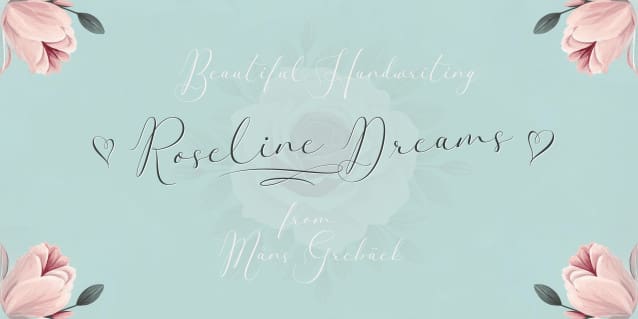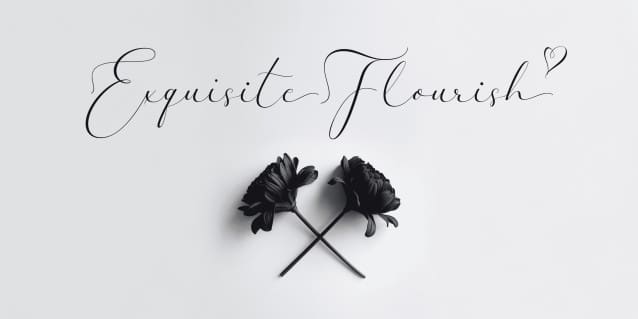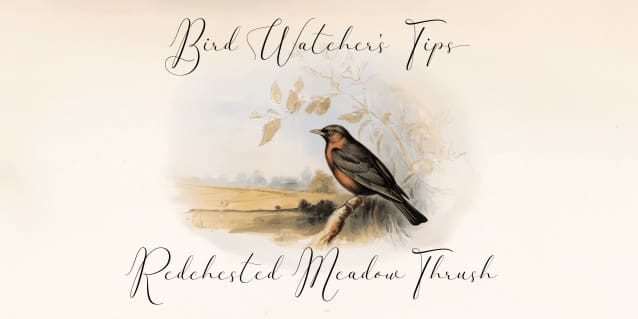
Roseline Dreams Font
Roseline Dreams Font is an elegant and delicate handwritten script. With thin, graceful strokes, it evokes a sense of feminine beauty and sophistication.
Use underscore _ anywhere in a word to make a swash.
Example: Rose_line
Use multiple underscores for different swashes.
Example: Hand_______writing